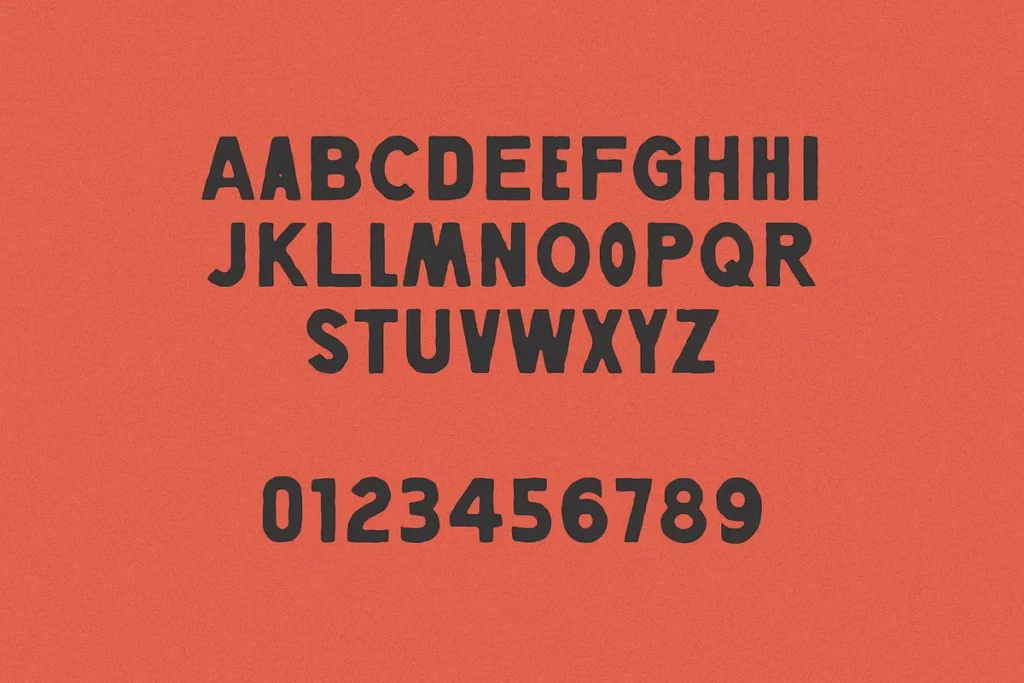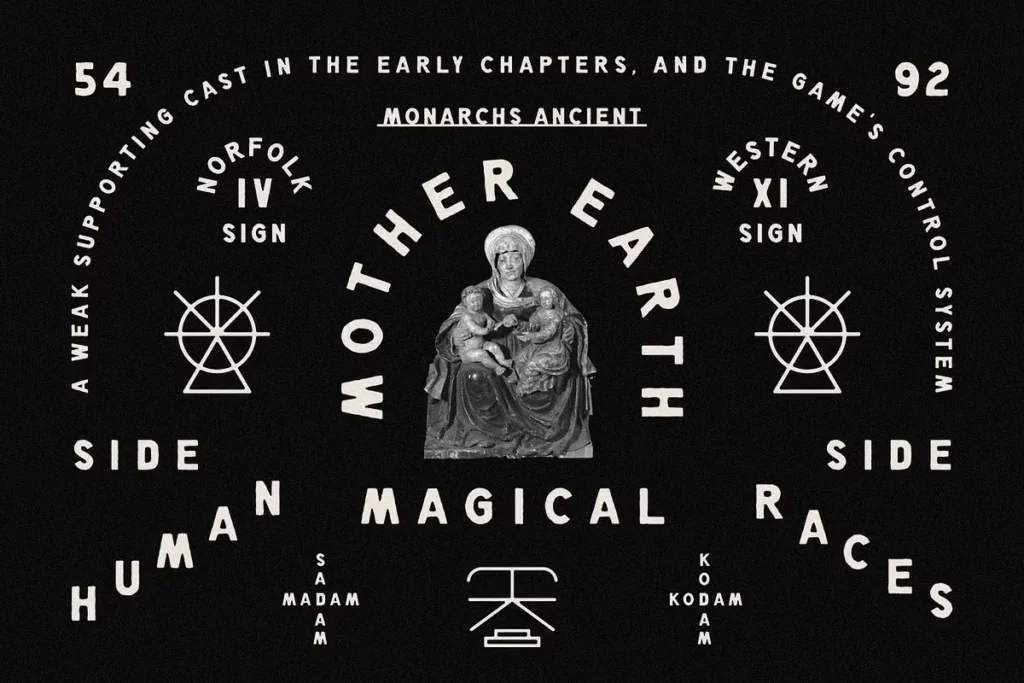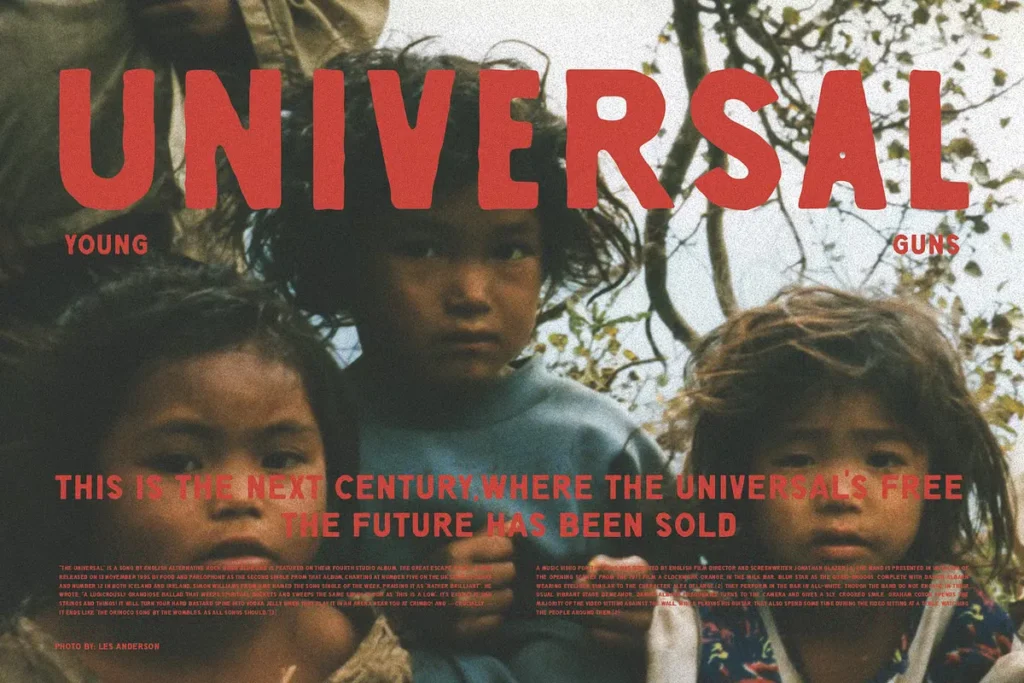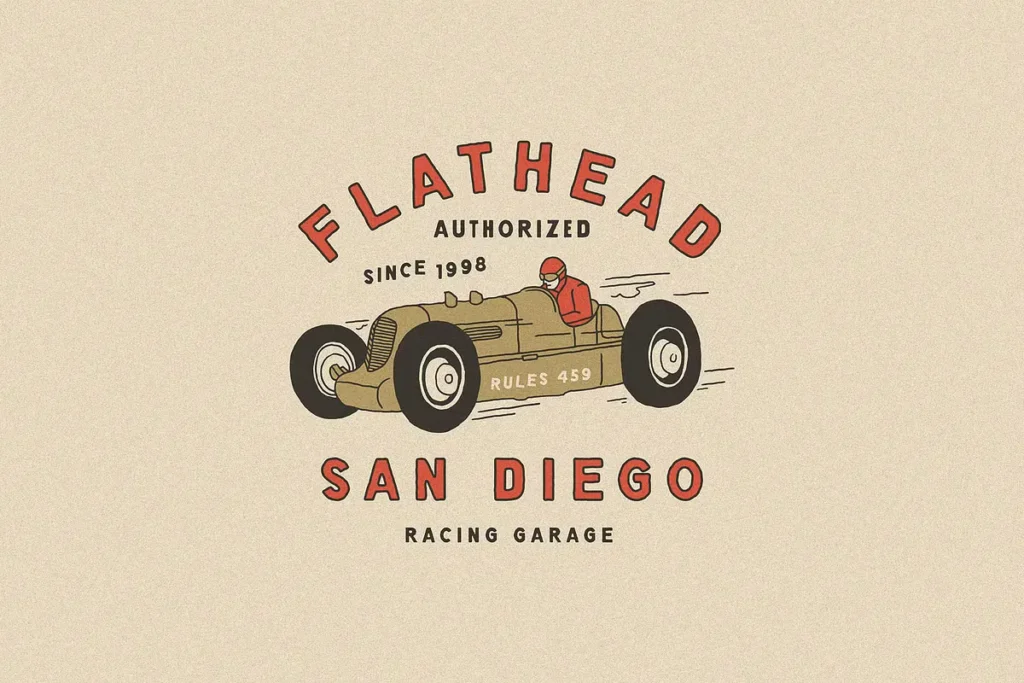
Sun Motter is a free bold vintage modern font designed to make a strong visual impact in any creative project. Combining retro-inspired aesthetics with contemporary design elements, this typeface delivers a unique blend of boldness, character, and versatility. Its thick strokes, raw handcrafted details, and vintage-modern appeal make it an excellent choice for designers looking to create eye-catching visuals.
Whether you’re designing logos, branding materials, posters, packaging, social media graphics, merchandise, or editorial layouts, Sun Motter provides a distinctive look that instantly grabs attention. The font’s handcrafted style adds authenticity and personality, while its clean structure ensures readability across various applications.
Perfect for vintage branding, retro-themed projects, modern typography, and creative marketing campaigns, Sun Motter helps your designs stand out with confidence. Its bold appearance works exceptionally well for headlines, logotypes, product labels, and promotional materials that require a memorable visual presence.
Designers, marketers, and content creators can use this free font to add a touch of nostalgia while maintaining a modern and professional feel. If you’re searching for a bold vintage typeface with raw character and timeless appeal, Sun Motter is a fantastic addition to your font collection.
Sun Motter Free Bold Vintage Modern Font